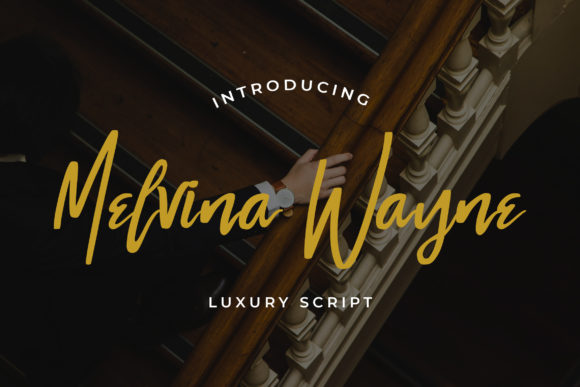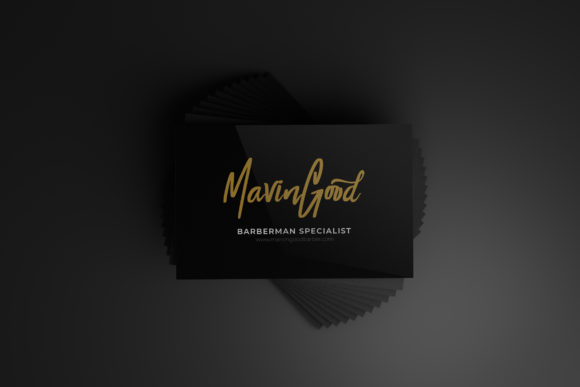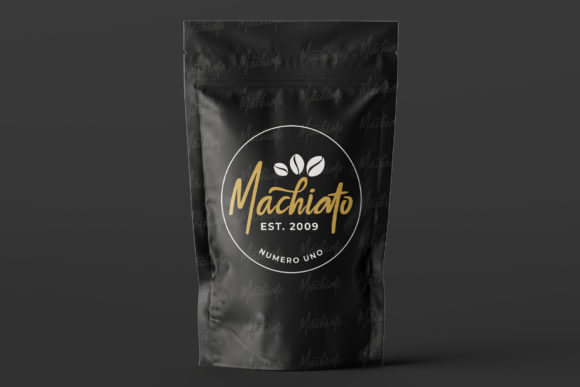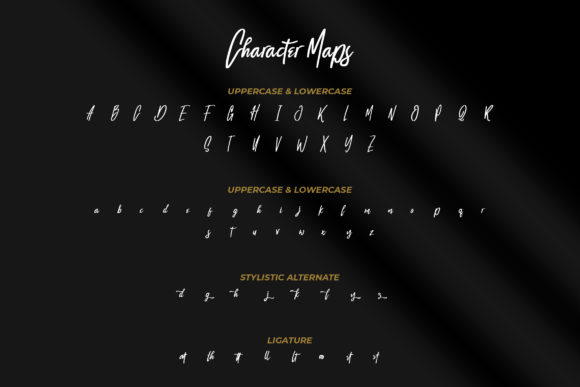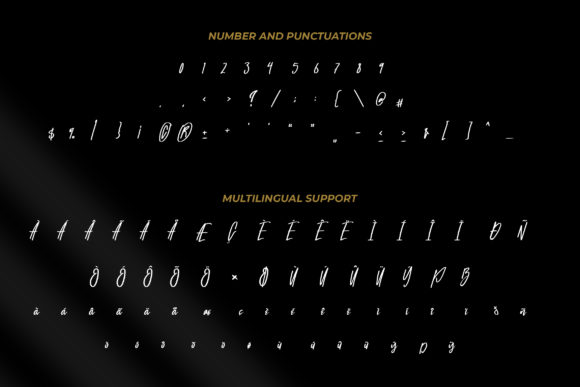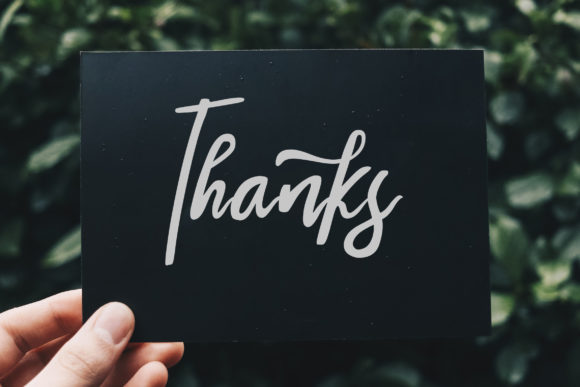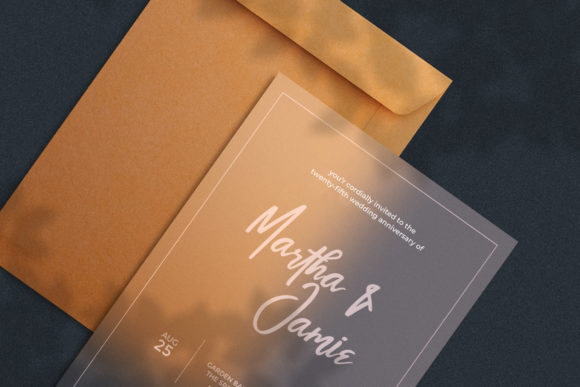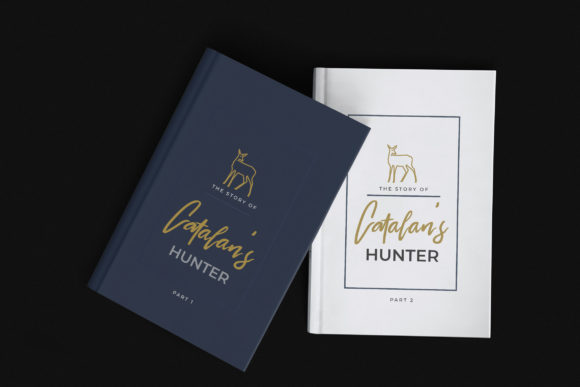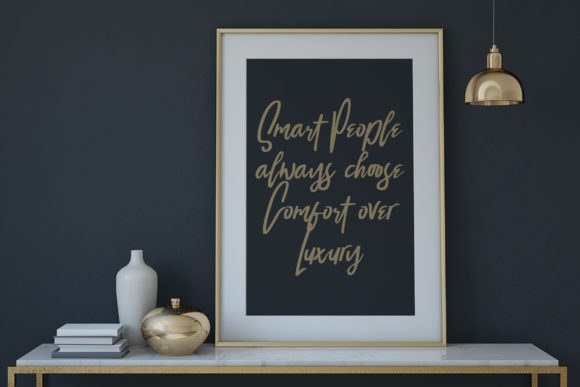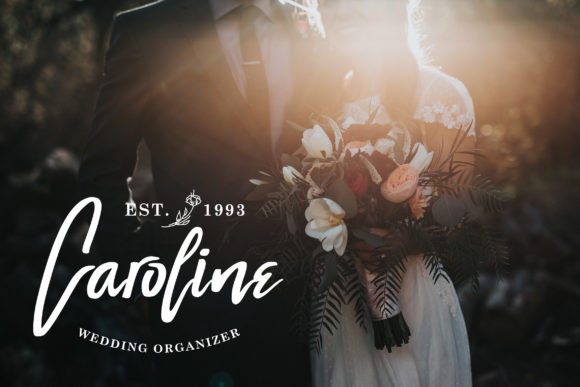
Melvina Wayne Font
About Melvina Wayne Font
Melvina Wayne is a luxurious and authentic script font, created by using a brush pen. Whether you’re looking for fonts for Instagram or calligraphy scripts for DIY projects, this font will turn any creative idea into a true piece of art!